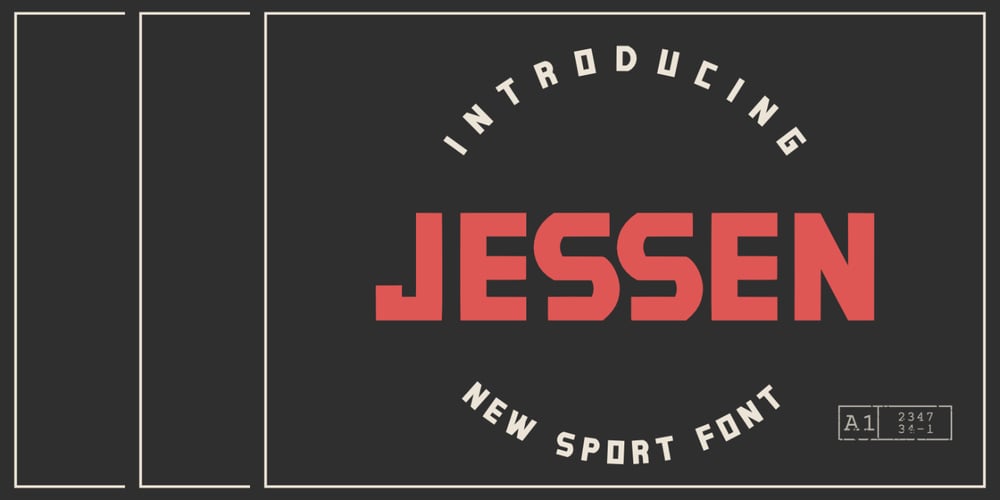
Jessen Sport Font Family was designed by Bayu Aji Fais Mursid and published by Bayuktx. Jessen Sport contains 1 styles and family package options. Jessen a New Sport Font, This font is made with a high premium quality level which you can use as flyers, quotes, posters, banners, packaging, merchandise, logotypes and much more.FEATURES :* Uppercase* Number* Punctuation* Multilingual* PUA Encode* OpentypeFILES INCLUDED :* JessenThank you